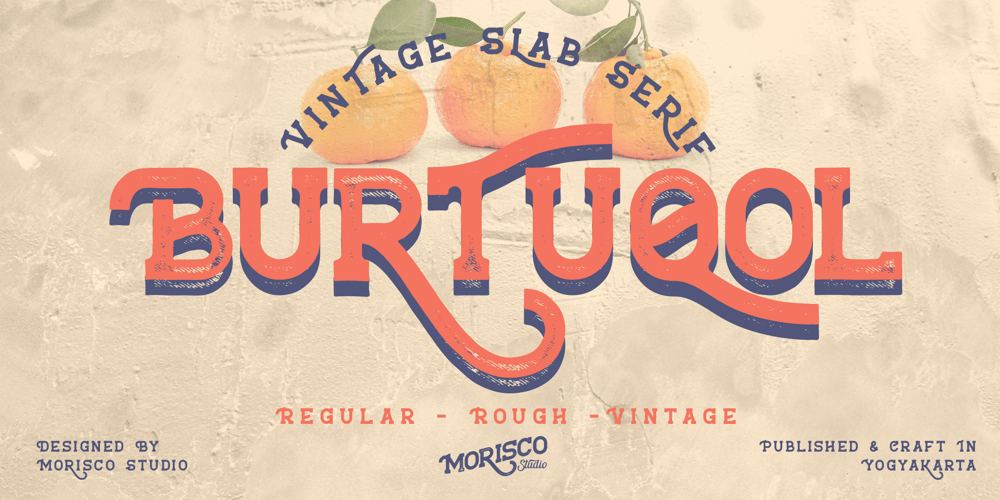
Burtuqol Slab
Burtuqol Slab font
Burtuqol Slab Font Family was designed by Fathur Rahman and published by Morisco Studio. Burtuqol Slab contains 3 styles and family package options. Burtuqol is handmade Vintage Slab Serif font perfect for branding, logo, t-shirt (apparel), headline, packaging, greeting card, wedding invitation and more.Featured: Uppercase Lowercase Number Punctuation Alternate